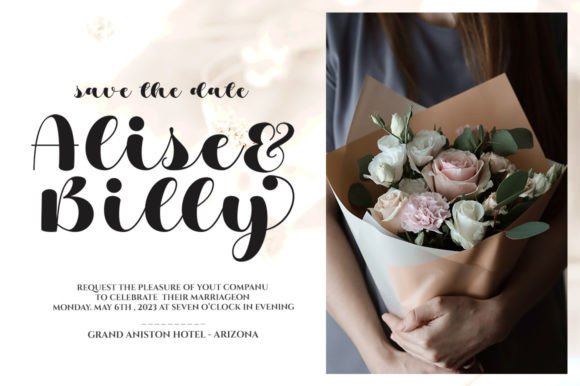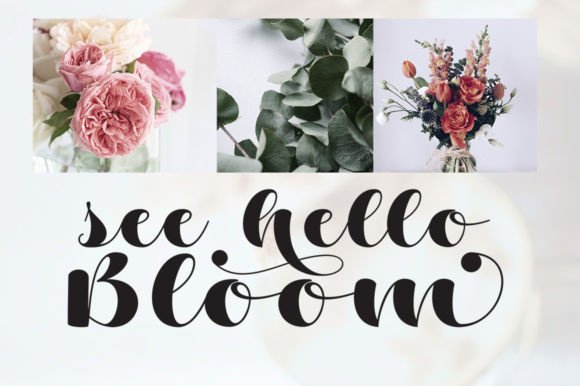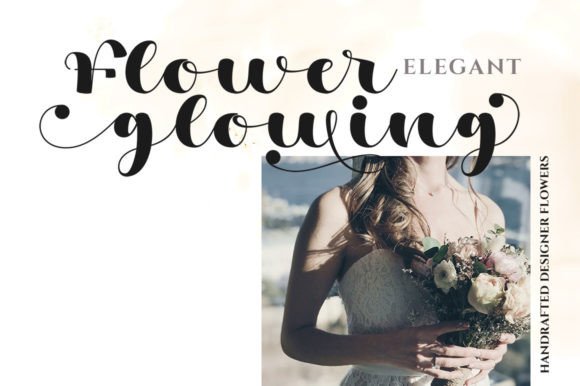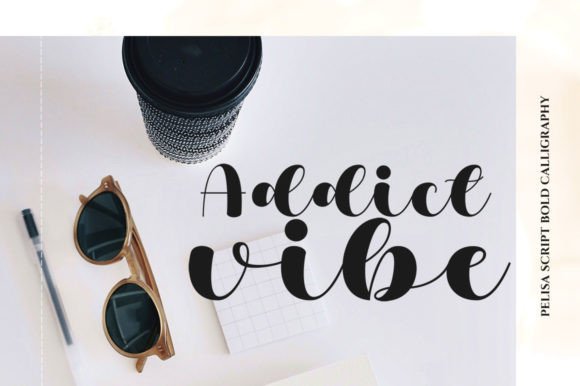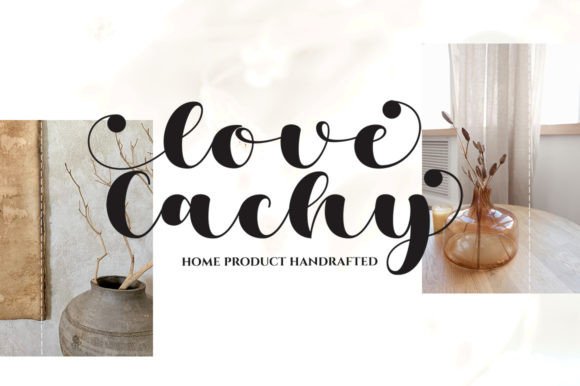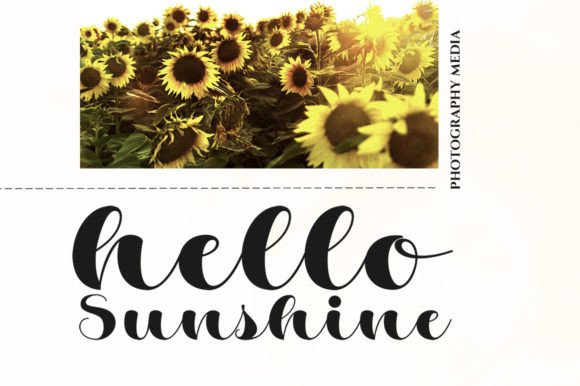
Introduction to Pelisa Font
As designers, we’ve all been there – staring at a blank page, trying to conjure up the perfect font to bring our creative project to life. And then, like a breath of fresh air, you stumble upon the perfect design resource. For those in search of a high-quality font that exudes elegance and sophistication, we’re excited to introduce you to the stunning Pelisa Font.
With its casual and graceful style, this versatile font is ideal for a wide range of applications, from wedding invitations and signage to headlines, logos, and packaging. Whether you’re a seasoned designer or just starting out, the Pelisa Font is a valuable addition to your toolkit. And the best part? It’s available for free download, making it an accessible and exciting resource for any creative project.
Pelisa Font
- Features a transparent background, allowing for seamless integration into designs
- Includes a range of stylish characters, including uppercase and lowercase letters, numbers, and punctuation
- Perfect for use in graphic design, digital art, and other creative endeavors
Honest Review: Pelisa Font
I recently stumbled upon the Pelisa Font while searching for a high-quality design resource for a creative project. I must say, I was impressed by the font’s elegant and sophisticated look.
What works well about the Pelisa Font is its clean and modern design, making it perfect for various applications such as logos, branding, and digital products. The font also features a transparent background, allowing for seamless integration with other design elements.
The Pelisa Font is also available for free download, which is a huge plus for designers who are on a budget. However, I did notice that the font is not suitable for all types of projects, as it may not be legible in certain font sizes.
Here are some key features of the Pelisa Font:
- Perfect for logos, branding, and digital products
- Not suitable for all font sizes
Overall, I’m quite impressed with the Pelisa Font and would recommend it to designers who are looking for a high-quality design resource for their creative projects. Just be aware of its limitations and use it accordingly.
Rating: 4.5/5 ⭐️
Recommendation: Suitable for designers who need a high-quality, modern font for their creative projects.
⚠️ Limitations: Not suitable for all font sizes. ⚠️
✨ What works well: Clean and modern design, transparent background, available for free download. ✨
Pelisa Font is ideal for creative projects such as logos, branding, and marketing materials.
Lato is a beautiful, sans-serif font designed by Łukasz Dziedzic. It’s a great choice for designers who want a high-quality font with a transparent background. Lato is available for free download, making it an excellent design resource.
Lato Font is similar to Pelisa Font in terms of its clean and modern design. However, Lato has a more rounded feel, making it suitable for creative projects that require a softer touch.
Montserrat is a high-quality, urban font designed by Julieta Ulanovsky. It’s perfect for designers who want a font with a strong, modern feel. Montserrat is available for free download and features a transparent background, making it an excellent design resource.
Montserrat Font is similar to Pelisa Font in terms of its bold and modern design. However, Montserrat has a more geometric feel, making it suitable for creative projects that require a strong, urban aesthetic.